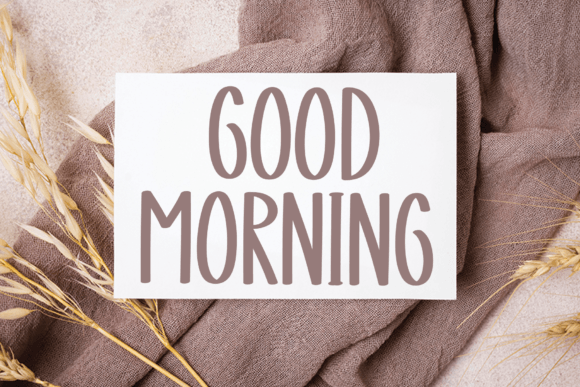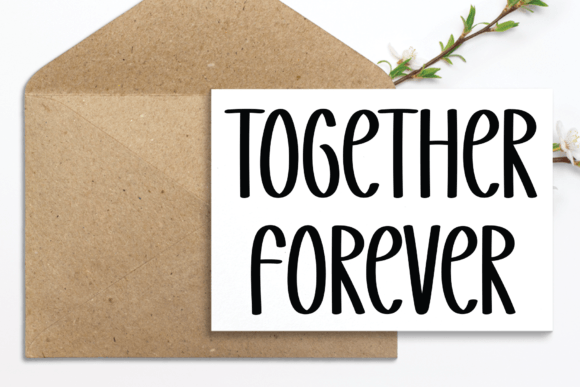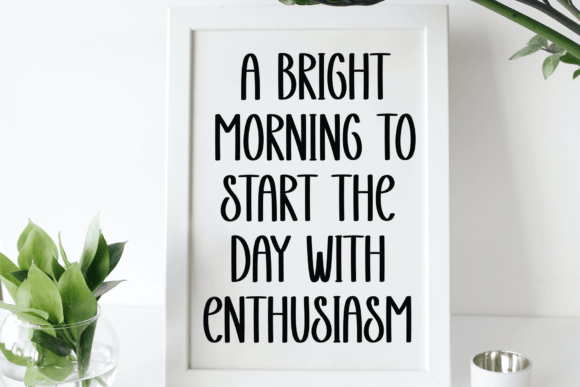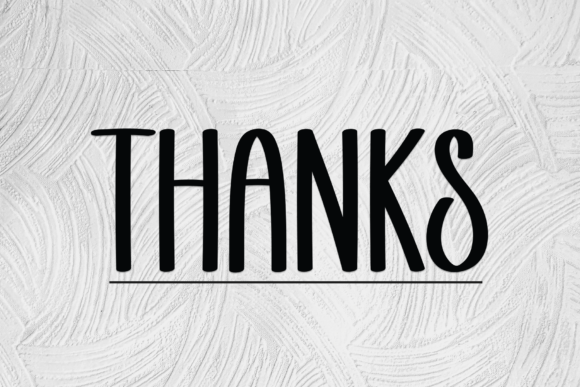
Happy Graduation Font: Elevate Your Designs with Elegance
Are you searching for a font that exudes elegance and sophistication? Look no further than the Happy Graduation font. This stunning sans-serif font is perfect for designers and crafters who want to add a touch of refinement to their projects. With its incredibly distinct and timeless style, Happy Graduation is sure to make your designs stand out.
What Makes Happy Graduation Font Special?
Happy Graduation font is a neat and beautiful sans-serif font that boasts an elegant touch. Its clean lines and simple shapes make it a versatile font that can be used for a wide range of projects, from wedding invitations and party decorations to business cards and branding materials. The font’s classic style ensures that it will never go out of fashion, making it a great investment for designers and crafters.
Key Features of Happy Graduation Font
- Elegant Touch: Happy Graduation font features an elegant touch that sets it apart from other sans-serif fonts. Its subtle curves and refined lines make it perfect for designs that require a touch of sophistication.
- Timeless Style: The font’s classic style ensures that it will remain relevant for years to come. Whether you’re designing a logo, brochure, or website, Happy Graduation font is a great choice.
- Distinctive: Happy Graduation font has a unique and distinctive style that makes it stand out from other fonts. Its clean lines and simple shapes make it easy to read and recognize.
- Versatile: The font is versatile and can be used for a wide range of projects, from print materials to digital designs.
How to Use Happy Graduation Font
Happy Graduation font is perfect for designers and crafters who want to create spectacular designs. Here are some ideas on how to use the font:
- Wedding Invitations: Use Happy Graduation font to create beautiful wedding invitations that set the tone for the special day.
- Party Decorations: Create stunning party decorations, such as banners, garlands, and gift tags, using Happy Graduation font.
- Branding Materials: Use the font to create professional branding materials, such as business cards, brochures, and logos.
- Digital Designs: Happy Graduation font is perfect for digital designs, such as social media graphics, website headers, and email newsletters.
Tips for Pairing Happy Graduation Font with Other Fonts
Pairing Happy Graduation font with other fonts can create a unique and visually appealing design. Here are some tips:
- Pair with Script Fonts: Pair Happy Graduation font with script fonts to create a elegant and sophisticated design.
- Pair with Bold Fonts: Pair the font with bold fonts to create a striking contrast and add visual interest to your design.
- Pair with Serif Fonts: Pair Happy Graduation font with serif fonts to create a classic and timeless design.
Happy Graduation font is a beautiful and elegant sans-serif font that is perfect for designers and crafters who want to create spectacular designs. With its timeless style, distinctive features, and versatility, Happy Graduation font is a great addition to any design project. Whether you’re designing a wedding invitation, party decoration, or branding material, Happy Graduation font is sure to make your design stand out.